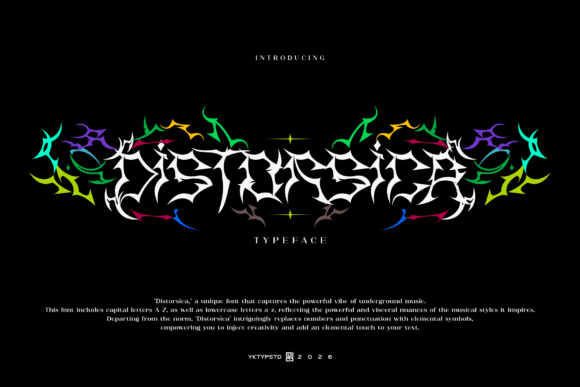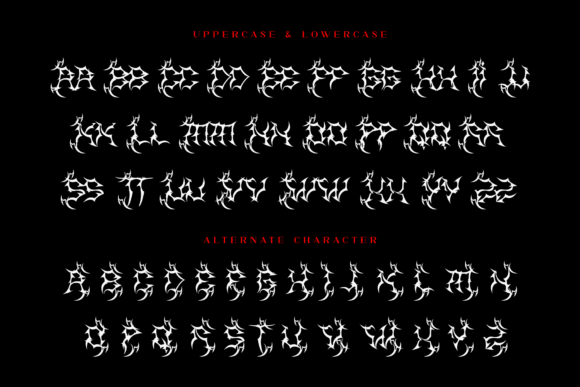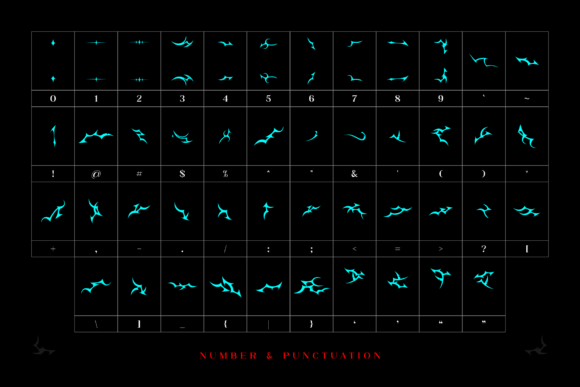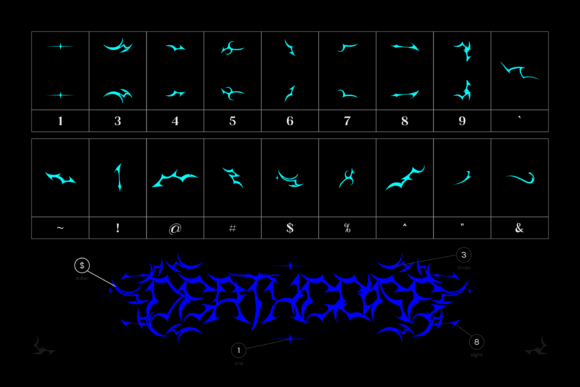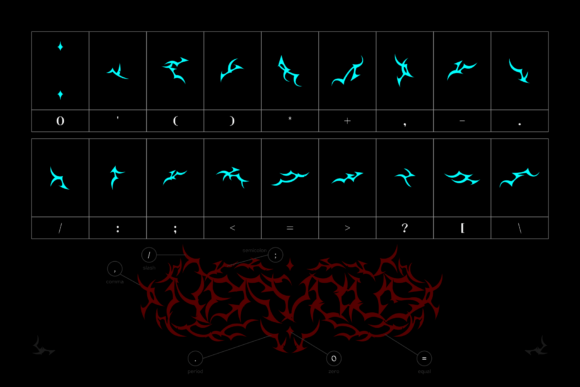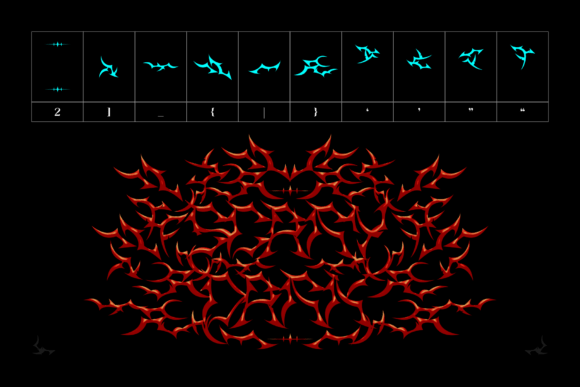
Introduction to Distorsica Font
Have you ever found yourself in the midst of a creative frenzy, surrounded by the raw energy of an underground music scene? The smell of sweat, the sound of distorted guitars, and the pulsating rhythm of the drums all come together to spark a unique idea. For designers, this is the moment when inspiration strikes, and the Distorsica Font is the perfect catalyst to bring your vision to life.
As a unique design resource, the Distorsica Font offers a bold and experimental aesthetic that’s perfect for creative projects that require a macabre touch. With its distinctive capital and lowercase letters, this font is sure to add a vibrant and electrifying element to any design. And with its transparent background and high-quality files, you can be sure that your designs will stand out from the crowd.
Key Features of Distorsica Font
- Unique Distortion Effect: Distorsica Font offers a one-of-a-kind design resource with a distorted texture, making it perfect for creative projects that require a touch of chaos.
- High-Quality Design: This font features a high-quality design with transparent background, allowing for seamless integration into any project.
- Large Character Set: Distorsica Font includes a large character set, including uppercase and lowercase letters, numbers, and punctuation marks.
- Perfect for Creative Projects: Distorsica Font is ideal for designers working on creative projects that require a unique and eye-catching font, such as music albums, video games, and advertising campaigns.
Honest Review: Distorsica Font
I recently stumbled upon the Distorsica Font while searching for a unique design resource for a creative project. I was immediately drawn to its quirky, futuristic aesthetic.
What works well: ✨ The Distorsica Font’s most notable feature is its ability to be customized to create a transparent background, allowing for seamless integration with any design. The font also comes in a range of weights and styles, making it a versatile choice for a variety of creative projects.
- Multiple weights and styles to choose from
What doesn’t: ⚠️ While the Distorsica Font is available as a free download, the quality can be inconsistent at times. Some characters may appear slightly pixelated or blurry, which can be distracting in high-resolution designs.
Overall, I’d recommend the Distorsica Font for designers looking for a unique and customizable font for their creative projects. While it has its limitations, its high-quality vector format and transparency support make it a valuable resource for any design enthusiast.
Tips and Use Cases
Some common use cases for Distorsica Font include:
- Creatively designing social media graphics
- Adding a unique touch to presentations and documents
- Creating high-quality designs for posters, flyers, and brochures
For the most out of Distorsica Font, experiment with different styles and sizes, and take advantage of the transparent background feature to create stunning visual effects. You can also use the font in conjunction with other design resources to create a cohesive and visually appealing design.